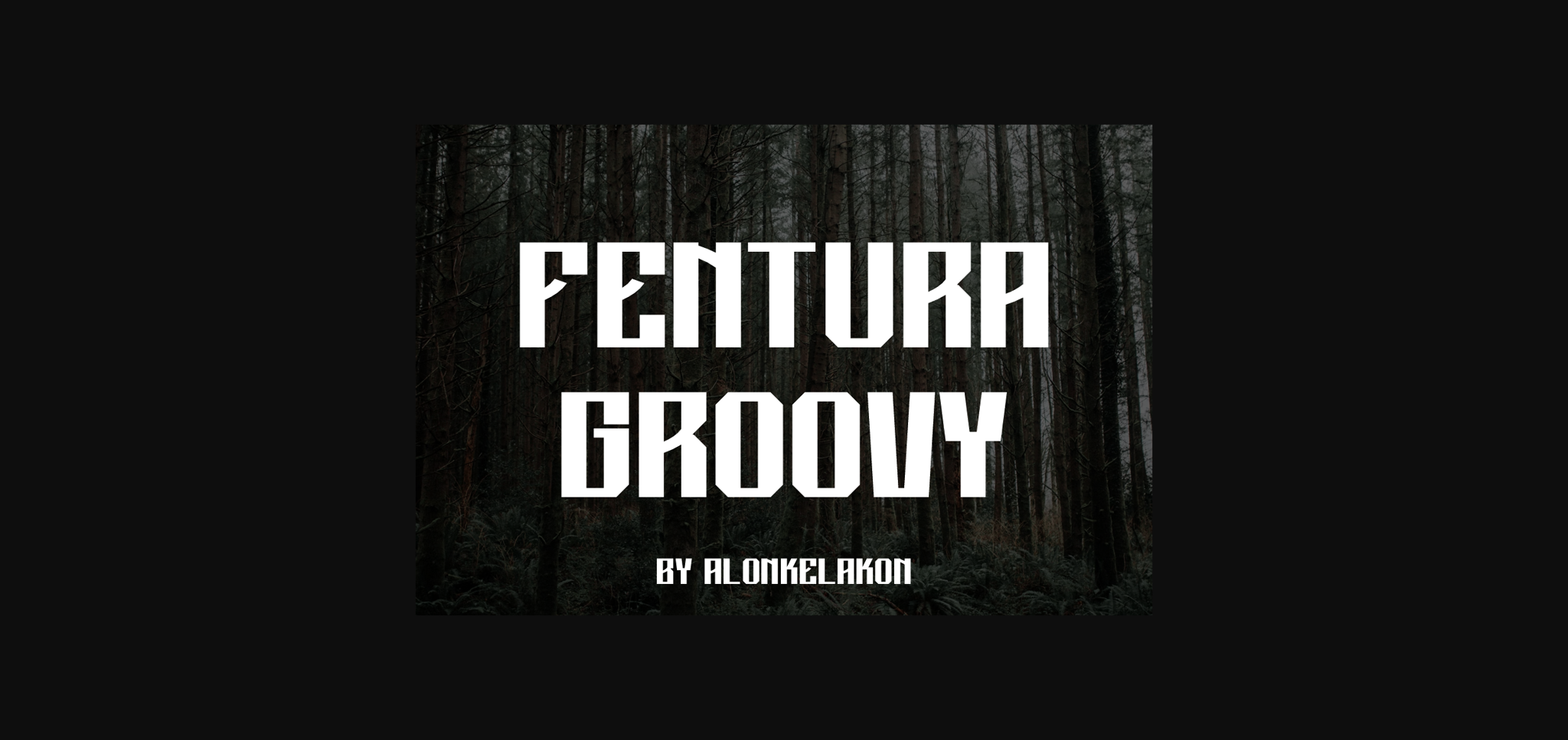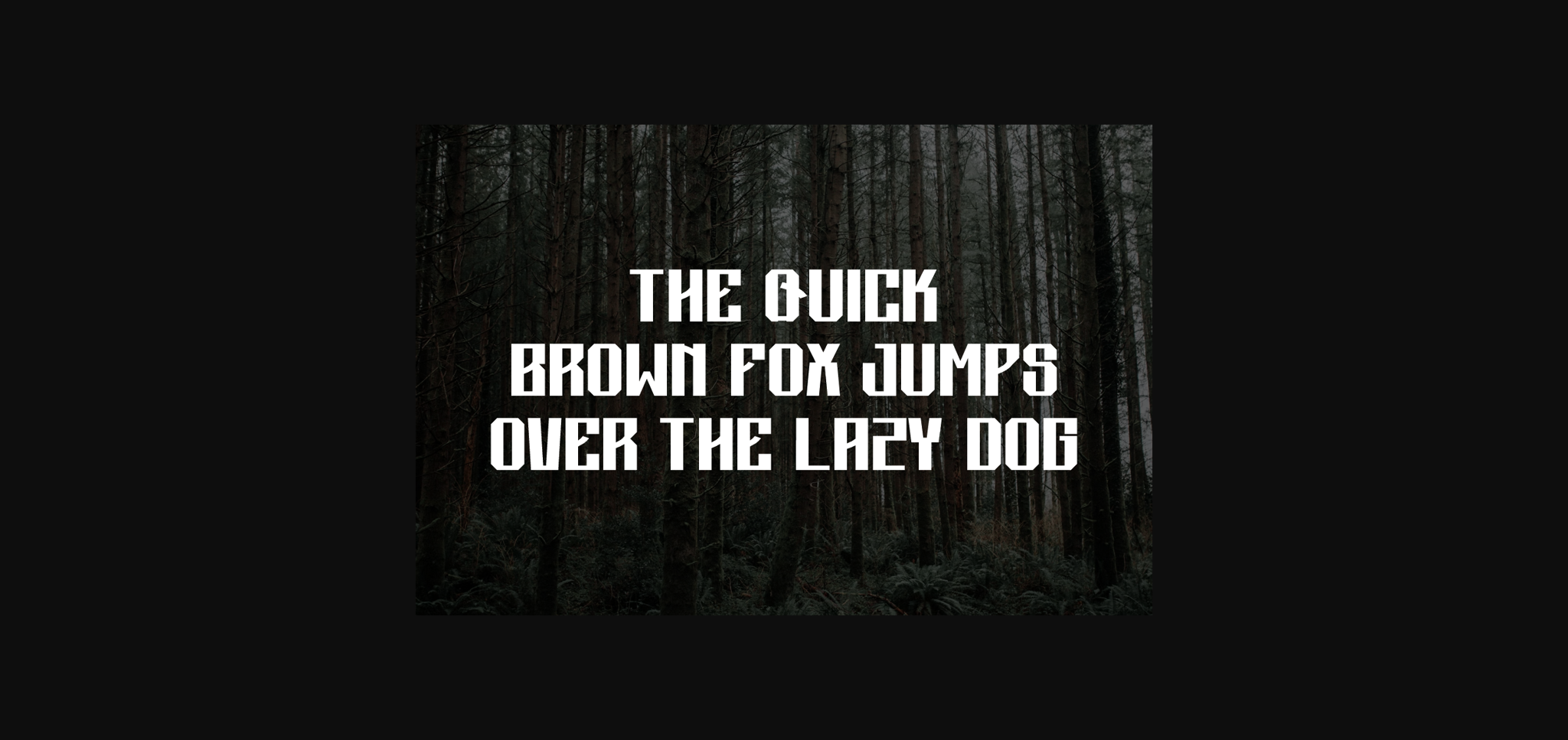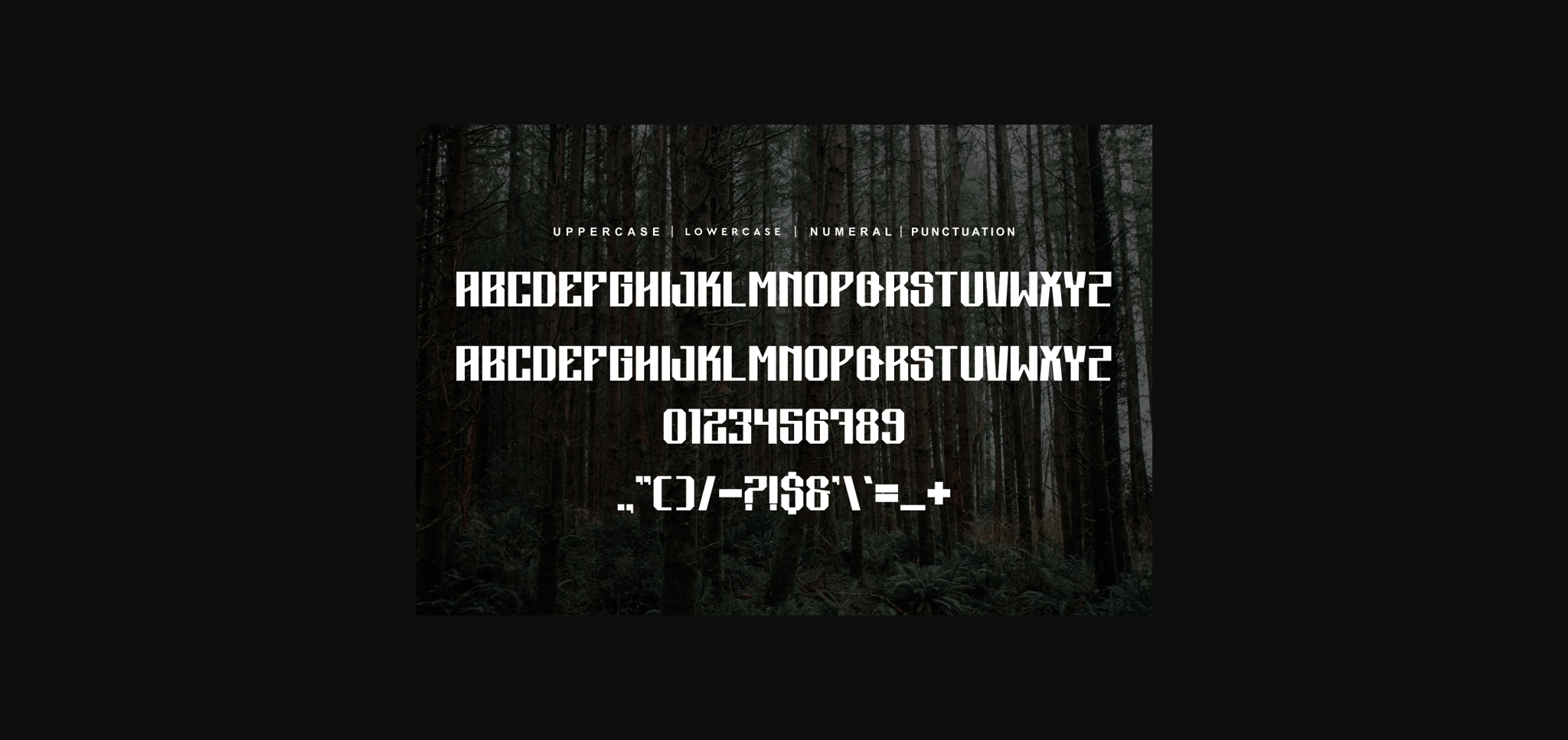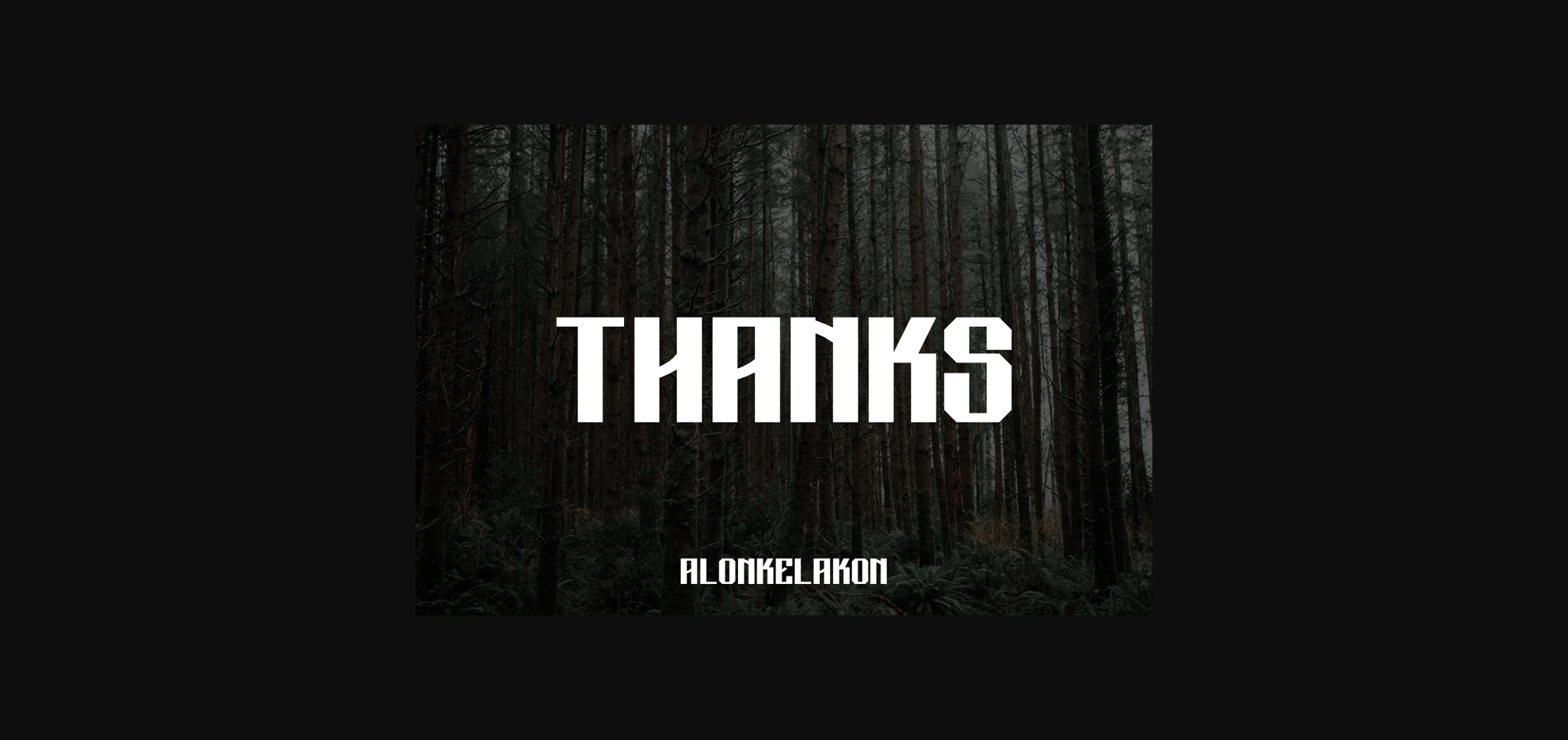
Fentura Groovy Font
About Fentura Groovy Font
Introducing the one-of-a-kind Fentura Groovy Font! The perfect blend of creative and utilitarian, this font is suited for a variety of uses. Imagine it adorning your latest album cover or bringing vibrancy to a logo. Picture it setting the mood in movie scenes or adding an extra touch to labels. Whether it’s beaming from a poster or lending aesthetic grace to a movie title, the Fentura Groovy Font is ready to make a significant mark. It comes with OTF, TTF formats, finessing its versatility. Regardless of the project, the Fentura Groovy Font stands to transform your design into something truly unique.